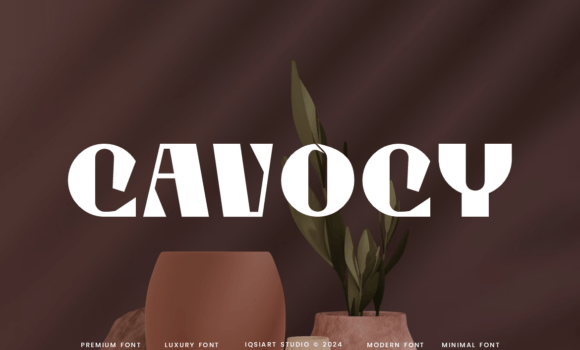
cavocy
Cavocy Font – Free Download Introduction to Cavocy Font Cavocy is a sleek and elegant font with a luxurious feel. 📸 Preview Gallery 5 images 📌 Product Name Cavocy Font 👤 Author IqsiartStudio 📂 Category Explore ⬇️ Download Cavocy Font